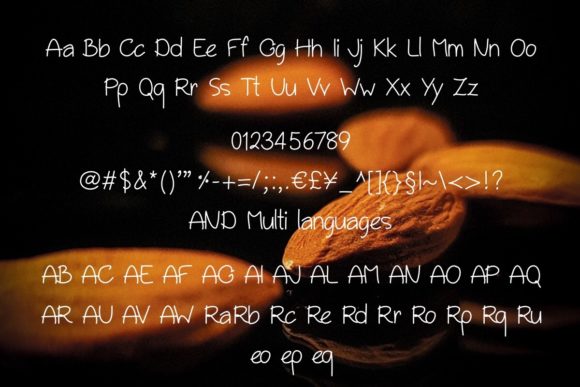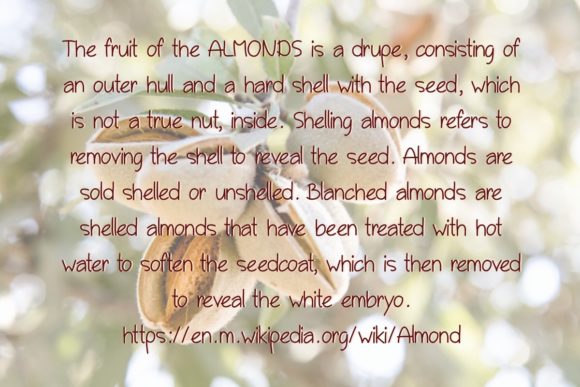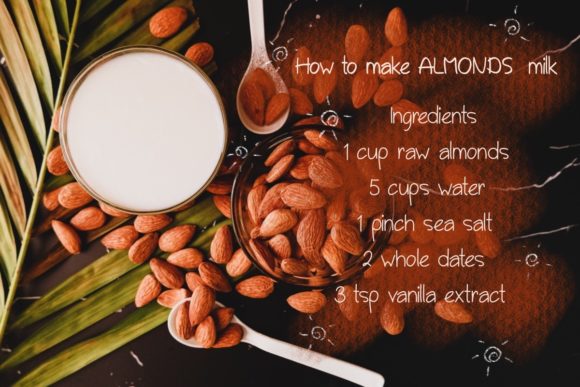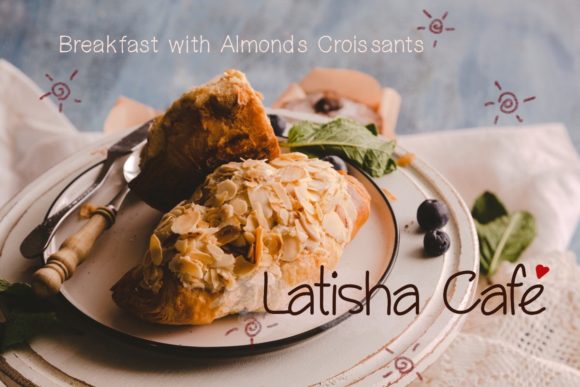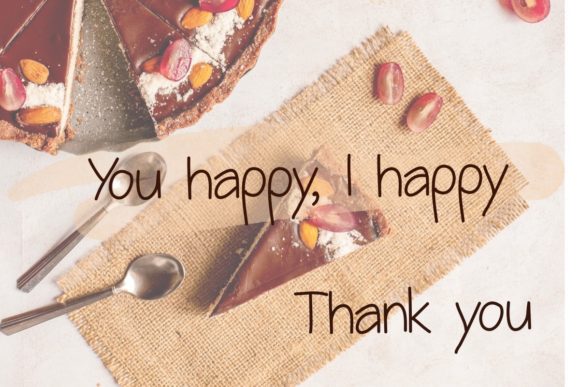
Introducing Almonds Font: A Clean and Simple Handwritten Delight
Are you a designer, crafter, or DIY enthusiast looking for a versatile and elegant font to elevate your creative projects? Look no further than Almonds Font, a beautifully clean and simple lettered handwritten font that’s perfect for a wide range of applications. In this article, we’ll dive into the world of Almonds Font, exploring its features, benefits, and uses, and why it’s a must-have addition to your font library.
What is Almonds Font?
Almonds Font is a stunning handwritten font that’s been carefully crafted to bring a touch of elegance and sophistication to your designs. With its clean lines, simple lettering, and organic feel, this font is perfect for creating beautiful text-based designs that are both visually appealing and easy to read.
Key Features of Almonds Font
- Clean and Simple Design: Almonds Font boasts a clean and simple design that’s perfect for creating modern and minimalist designs.
- Handwritten Style: This font features a beautiful handwritten style that’s perfect for adding a personal touch to your designs.
- Versatile: Whether you’re designing a logo, creating a social media post, or crafting a DIY project, Almonds Font is versatile enough to fit any theme or topic.
- Easily Readable: The font’s clear and simple lettering ensures that your text is easily readable, making it perfect for body text, headings, and titles.
Benefits of Using Almonds Font
- Enhance Your Designs: Almonds Font has the potential to elevate any creation, adding a touch of elegance and sophistication to your designs.
Uses of Almonds Font
So, what can you use Almonds Font for? The possibilities are endless! Here are a few ideas to get you started:
- Logo Design: Create a stunning logo for your business or brand using Almonds Font.
- Social Media Graphics: Use Almonds Font to create eye-catching social media graphics, quotes, and posts.
- DIY Projects: Add a personal touch to your DIY projects, such as handmade cards, gift tags, and crafts.
- Web Design: Use Almonds Font as a web font to create beautiful and readable website content.
| Font Name | Almonds Font |
| Author | PeamCreations |